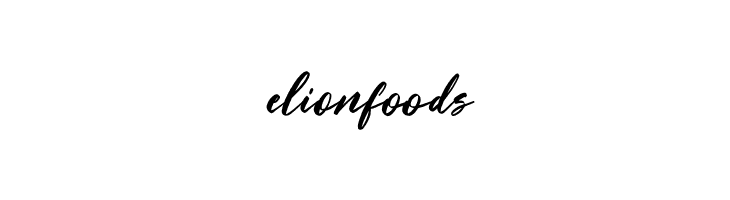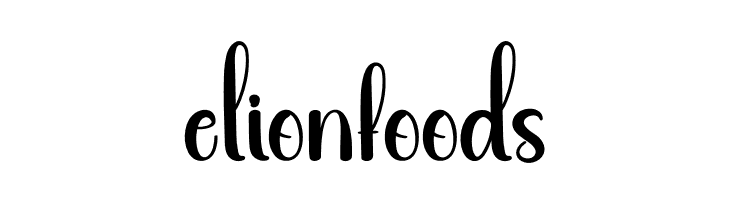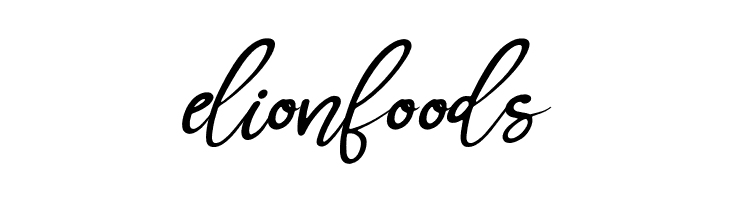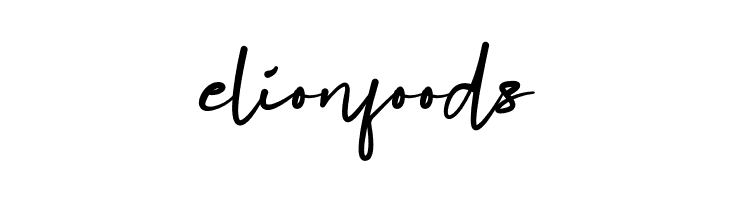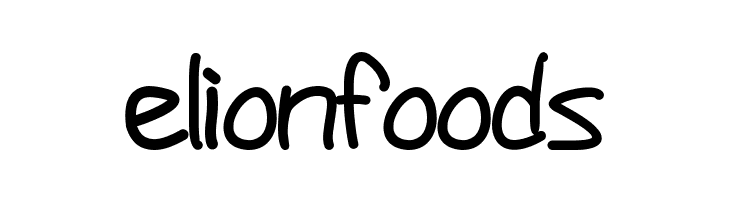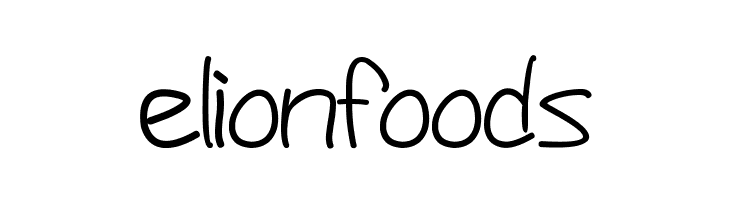
A playful, handwritten font with tall, narrow characters and whimsical loops.
Elegant cursive script with a handwritten style.
A lively, cursive script font with elegant, flowing letters and smooth strokes.
A playful, handwritten font with smooth, flowing lines and rounded edges.
A bold, playful handwritten font with rounded edges and a casual style.
A dynamic, cursive script font with fluid, expressive strokes.
A casual, handwritten font with a playful and spontaneous style.
A lively, handwritten script with fluid, connected strokes.